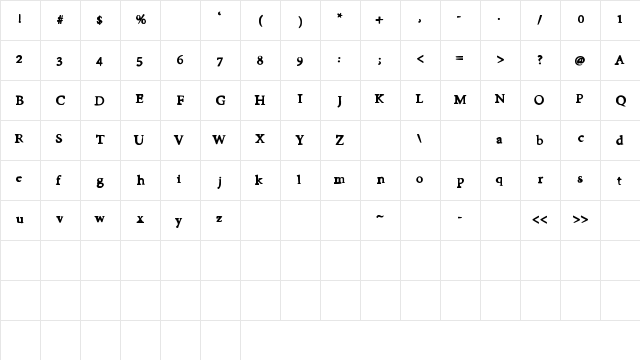
FirstDay Medium Font Preview
FirstDay Medium
Design Context for FirstDay Typeface
FirstDay takes a measured approach to typography — its balanced proportions and neutral character make it a reliable workhorse for both digital and print work.